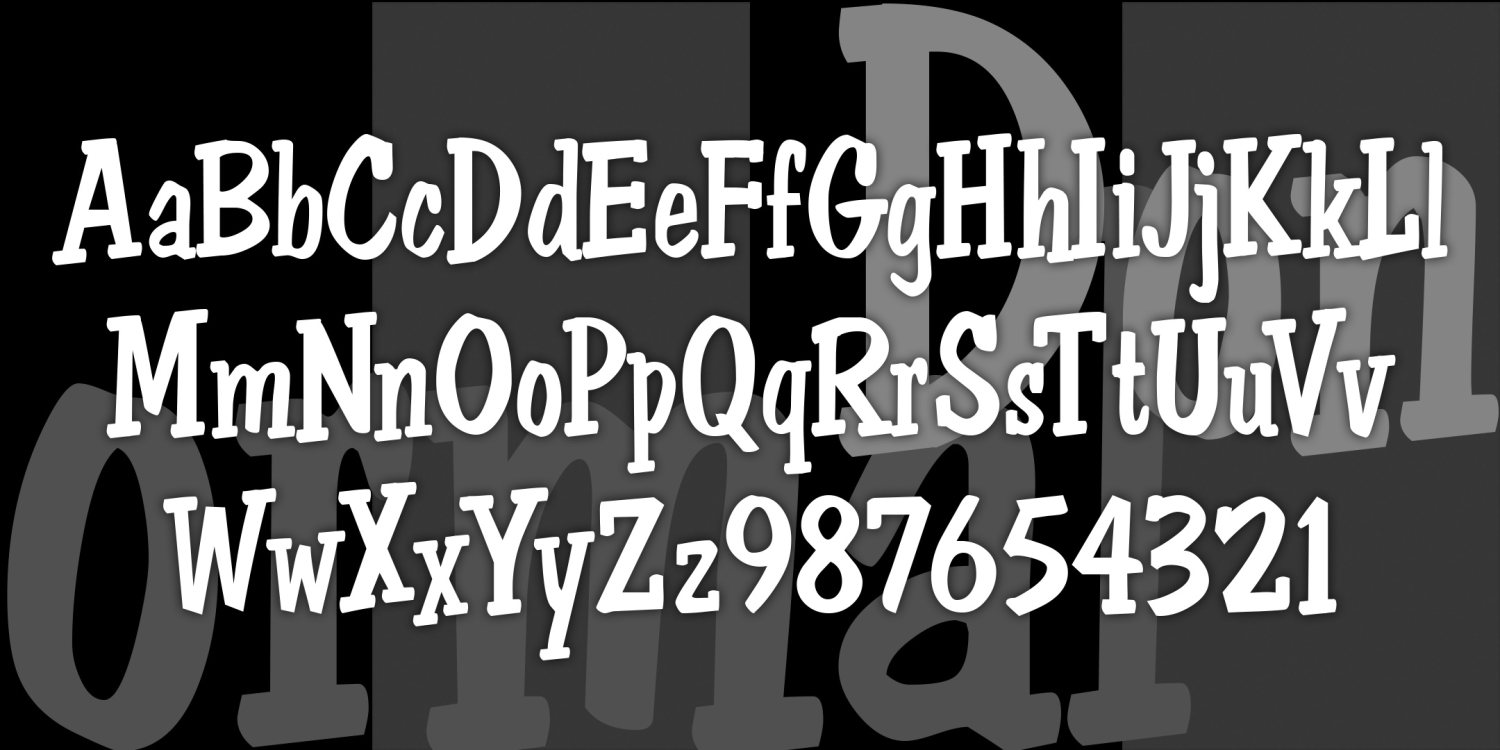
Don Semiformal
About Don Semiformal
Don Semiformal is a little joke, inspired by the font Dom Casual. I've added serifs to my approximation of the handwritten-style classic, which was originally designed by Peter Dombrezian for American Type Founders in 1952. Dom Casual is somewhat…